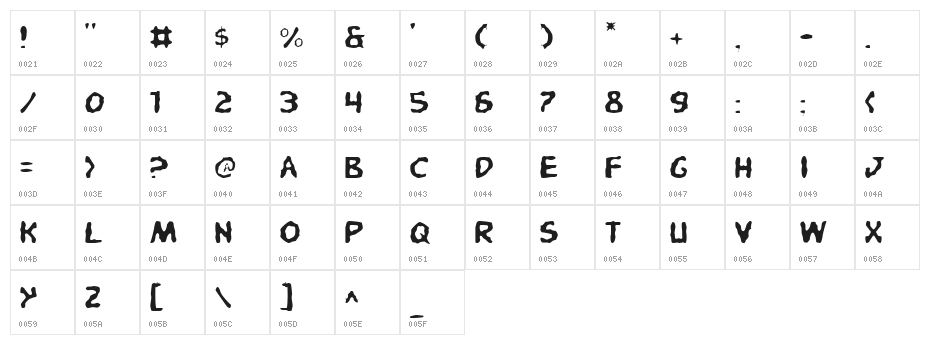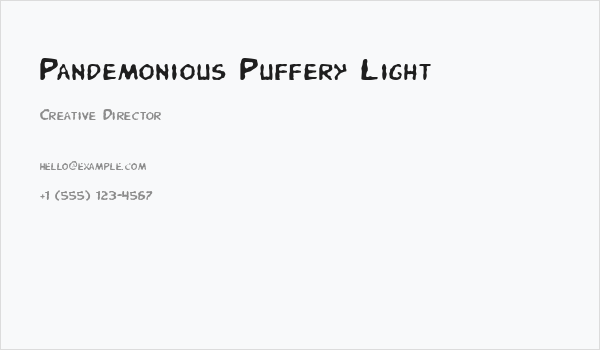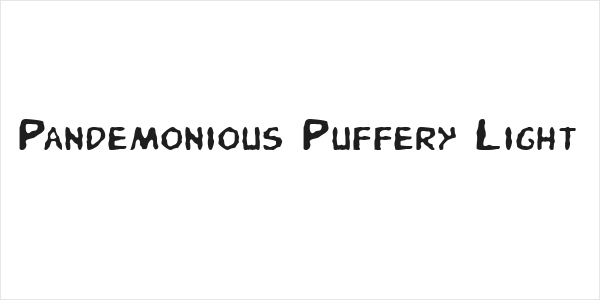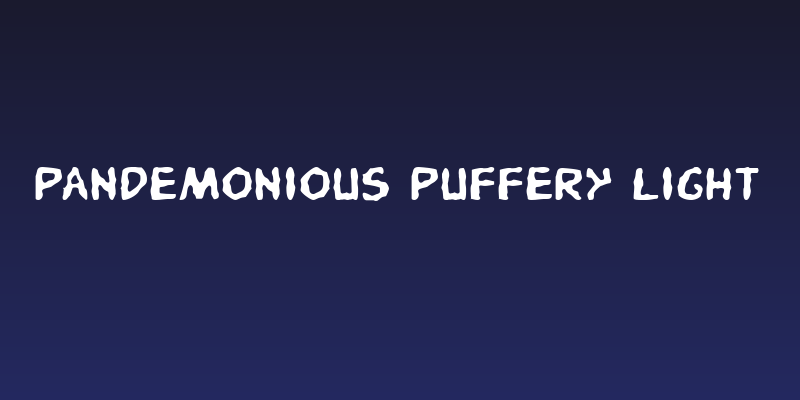
Pandemonious Puffery Light Font
Pandemonious Puffery Light Description
This font features a playful and whimsical style, characterized by its irregular and organic shapes. The letters have a hand-drawn appearance, with uneven edges and varying stroke thicknesses that give it a lively and dynamic feel. The overall look is bold and eye-catching, making it suitable for creative and informal designs. The characters are slightly condensed, with moderate spacing that maintains readability while adding to its quirky charm. The font includes a full set of uppercase and lowercase letters, numbers, and a variety of special characters, making it versatile for different design needs.
| Overall Style | Whimsical |
| Proposed Projects | Ideal for children's books, playful branding, creative posters, and informal invitations. |